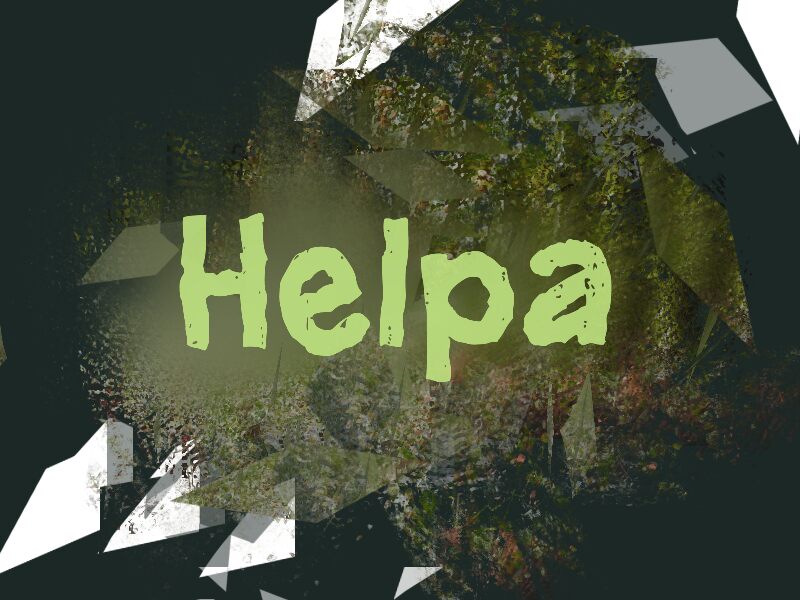
Helpa
Helpa font by wep is a rugged, distressed script font with a textured and handcrafted look. This expressive font features unique organic shapes that mimic those of hand-drawn handwriting on textured paper. Although it has graffiti trash stylistic influences, this typeface can be used in various themes to add depth.
Designers can use this free script font for book titles, stationery items like gift cards or business cards, film posters, album covers or electronic music artwork, packaging designs for food and beverages or other products among many other pieces of art.